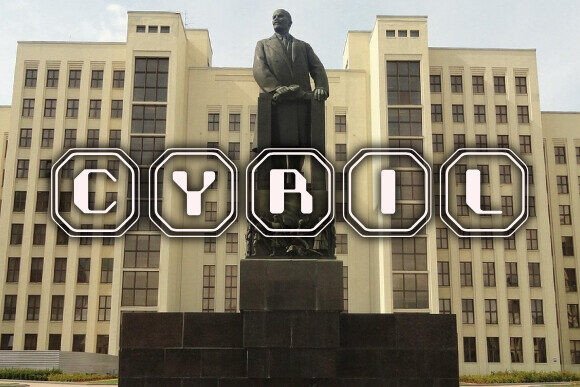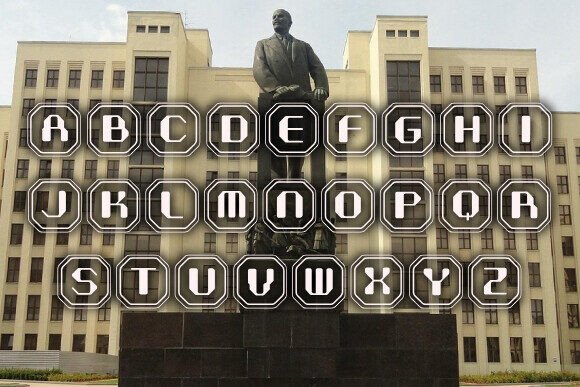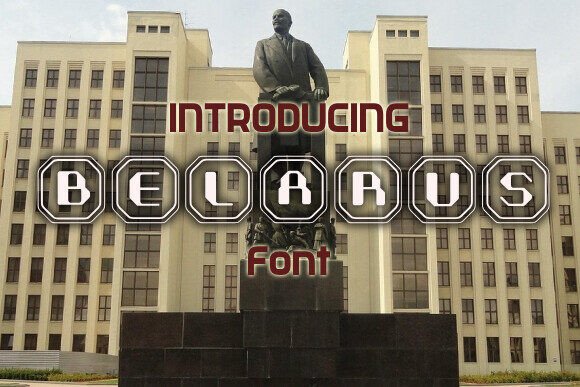
Introducing Belarus Font: Elevate Your Designs with Style
Are you a designer or crafter looking for a font that will make your creations stand out? Look no further than the Belarus Font. This stylish font is perfect for adding a touch of sophistication and elegance to your designs, making it ideal for a wide range of projects, from posters and flyers to t-shirts and more.
What is Belarus Font?
Belarus Font is a unique and modern font that is designed to make your designs look great. Its clean lines, elegant curves, and versatile style make it perfect for a wide range of applications. Whether you’re creating a poster for a concert, a flyer for a sale, or a t-shirt for a client, Belarus Font is the perfect choice.
Key Features of Belarus Font
- Stylish and Modern Design: Belarus Font has a sleek and contemporary design that will make your designs stand out from the crowd.
- Versatile: This font is perfect for a wide range of projects, from posters and flyers to t-shirts and more.
- Elegant and Sophisticated: Belarus Font adds a touch of elegance and sophistication to your designs, making them perfect for high-end clients or special occasions.
- Easy to Read: Despite its stylish design, Belarus Font is easy to read, making it perfect for body text as well as headlines.
Ideas for Using Belarus Font
- Posters: Use Belarus Font to create eye-catching posters for concerts, events, or promotions.
- Flyers: Add a touch of style to your flyers with Belarus Font, perfect for sales, discounts, or special offers.
- T-Shirts: Create custom t-shirts with Belarus Font, perfect for clients, events, or promotions.
- Business Cards: Use Belarus Font to create stylish and professional business cards that will make a lasting impression.
- Social Media Graphics: Add a touch of elegance to your social media graphics with Belarus Font, perfect for Facebook, Instagram, Twitter, and more.
Tips for Getting the Most Out of Belarus Font
- Experiment with Different Sizes: Belarus Font looks great in a wide range of sizes, from small body text to large headlines.
- Play with Color: Belarus Font looks great in a wide range of colors, from bold and bright to subtle and muted.
- Combine with Other Fonts: Belarus Font pairs well with a wide range of other fonts, so don’t be afraid to experiment with different combinations.